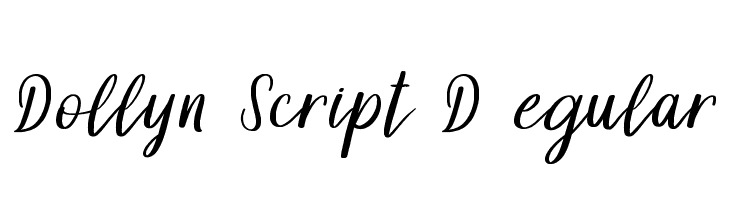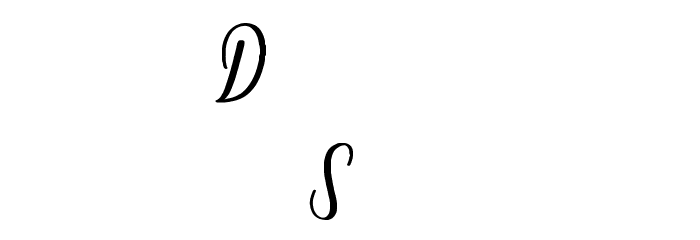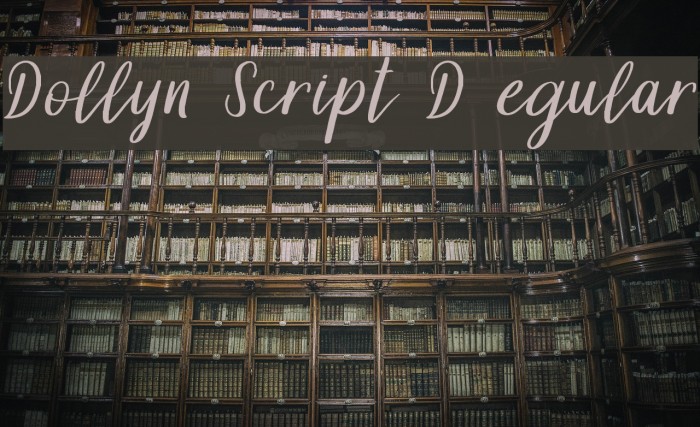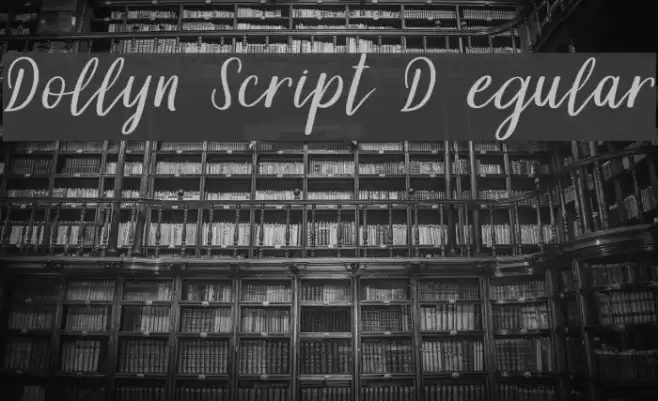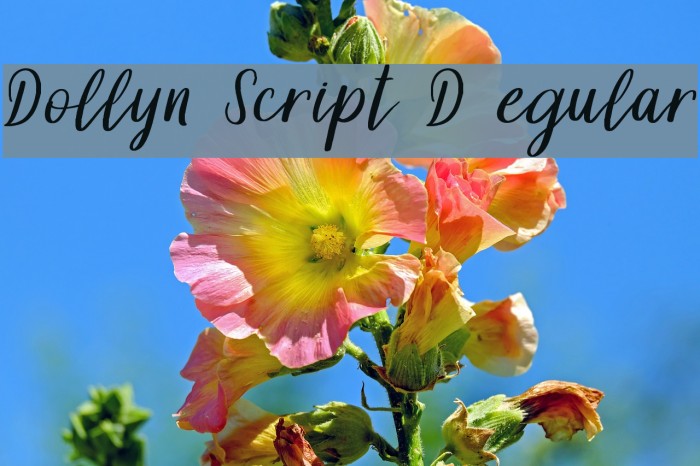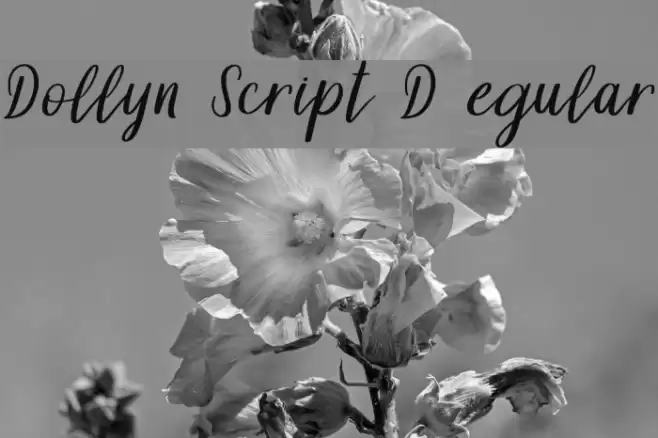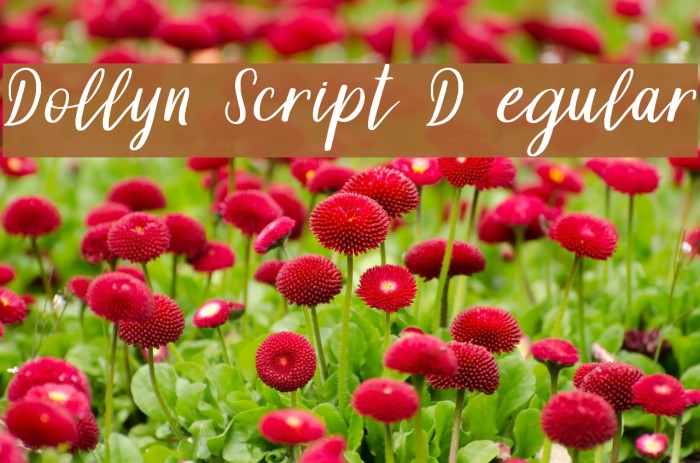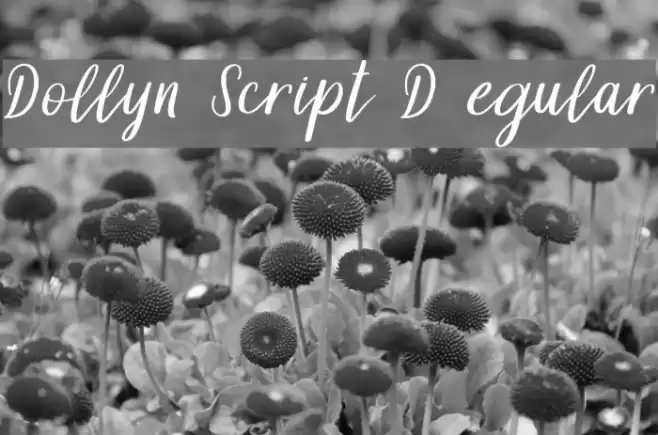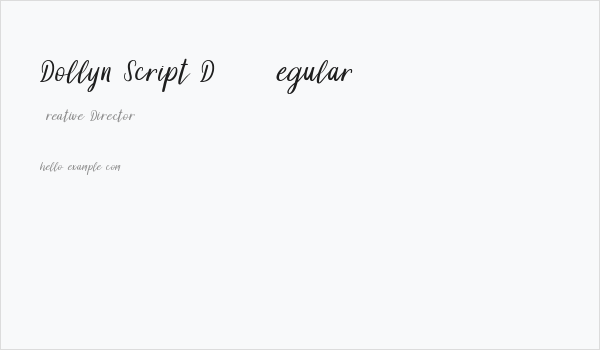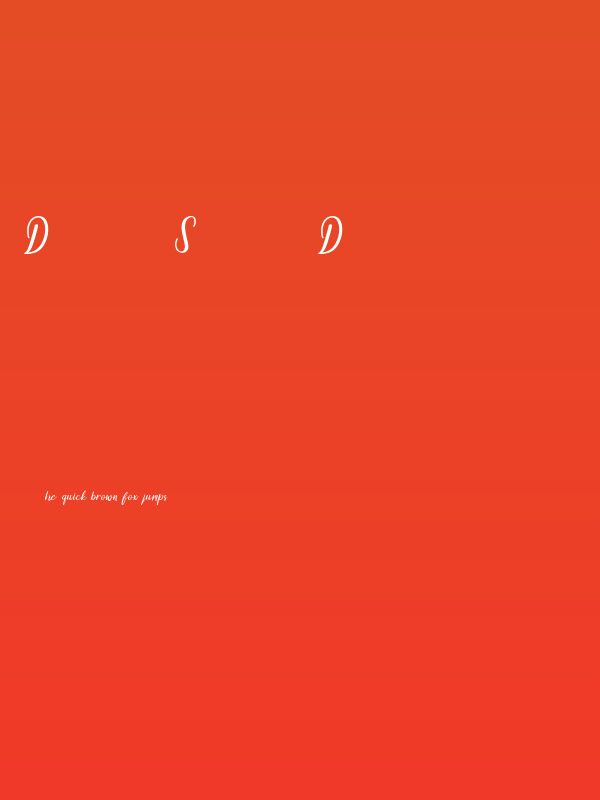
Dollyn Script DEMO Regular Font
This font features a flowing, elegant script style with a modern touch. The letters are connected in a fluid manner, creating a sense of movement and grace. The uppercase letters are slightly more ornate, with sweeping curves and loops that add a decorative flair. The lowercase letters maintain a consistent baseline, enhancing readability while retaining the script's artistic quality. This font is ideal for projects that require a personal, handwritten feel, such as invitations, greeting cards, or branding materials. Its stylish appearance makes it suitable for both formal and casual applications.
| Proposed Projects | Ideal for invitations, greeting cards, branding materials, and any project needing a personal touch. |